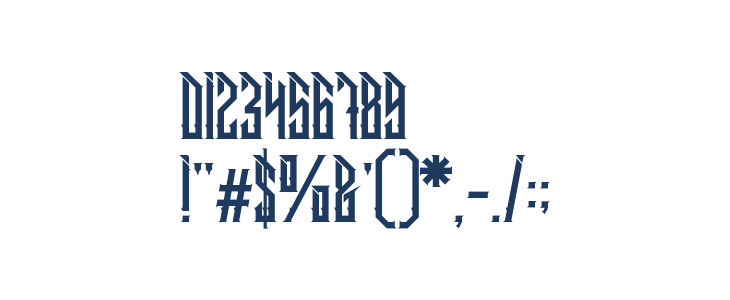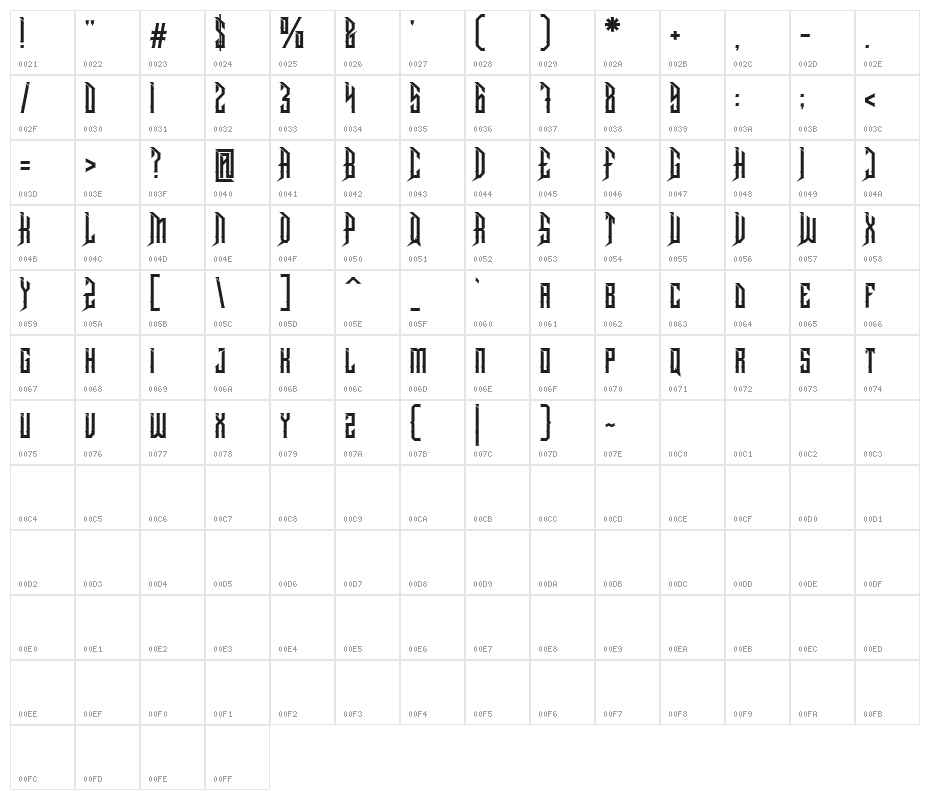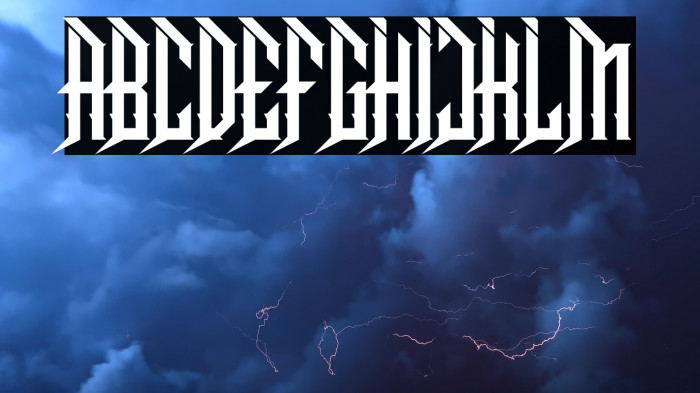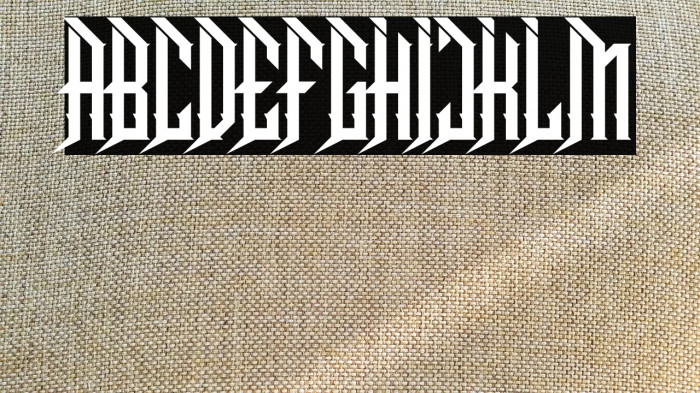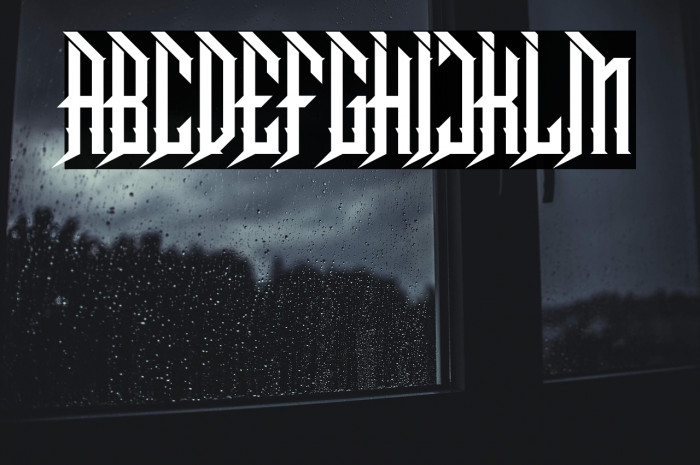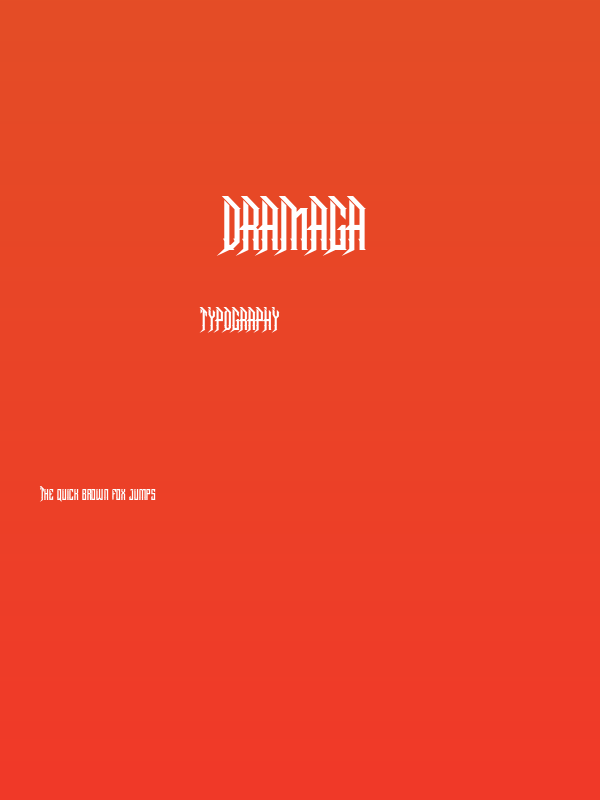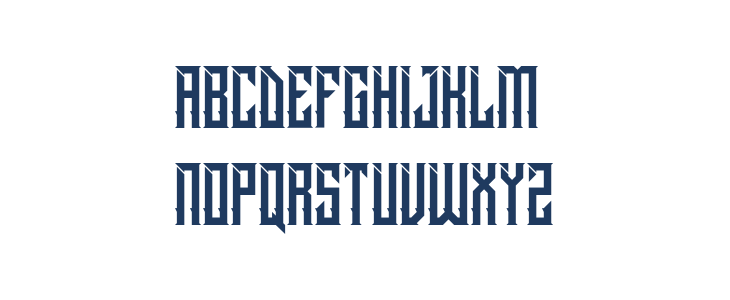
Dramaga Font
Dramaga Description
This font features a bold and striking design with sharp, angular lines and a distinct Gothic influence. The uppercase letters are tall and narrow, with intricate details that give them a dramatic and imposing appearance. The lowercase letters maintain the same angular style, ensuring consistency throughout the typeface. Numbers and special characters are designed to match the overall aesthetic, making them suitable for a variety of creative applications. The font's unique style makes it ideal for projects that require a strong visual impact.
| Proposed Projects | Ideal for album covers, posters, branding for edgy or alternative products, and any project needing a bold statement. |